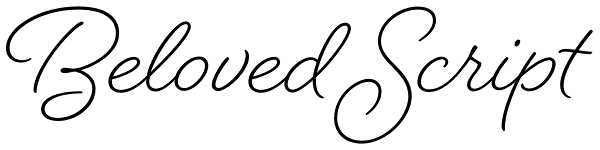
Beloved
Beloved Script –The hand of a romantic spirit, rendered in ballpoint As befits its name, Beloved Script suggests the hand of a romantic spirit … albeit one writing with a simple pen. Its monoline strokes evoke classic 20th-century penmanship...